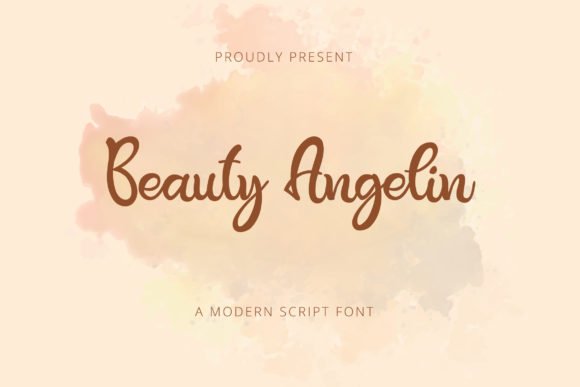
The Perfect Script: Unveiling the Beauty Angelin Font
Have you ever been stuck in a creative rut, staring at a blank canvas or a blank page, waiting for that spark of inspiration to strike? It’s a feeling many designers know all too well. But what if I told you that there’s a font that can help ignite that spark and bring your designs to life?
Meet the Beauty Angelin Font, a stunning handcrafted script font that’s perfect for adding a touch of elegance and sophistication to any graphic design project. Whether you’re creating branding materials, t-shirts, prints, business cards, logos, posters, or photography, this beautiful font is sure to make your designs stand out. And the best part? It’s versatile and easy to use, making it a valuable addition to any designer’s toolkit.
So why settle for a generic font when you can add a touch of personality to your designs with the Beauty Angelin Font? Its unique charm and character make it a game-changer for designers looking to take their work to the next level.
Beauty Angelin Font Key Features
- Font Family: Beauty Angelin Font
- Unique Characteristics: A beautiful, elegant, and modern script font with a feminine touch, ideal for wedding invitations, greeting cards, and other creative projects
Beauty Angelin Font Review
Overall, I have mixed feelings about the Beauty Angelin font. While it has some nice qualities, it also has some limitations that might make it less suitable for certain projects.
- Unique and elegant design: The font has a distinct, feminine feel that could be perfect for beauty, fashion, or lifestyle-related projects.
- High-quality rendering: The font looks great at various sizes and resolutions, making it suitable for both digital and print use.
- Good legibility: The font is easy to read, even at small sizes, which is a must for any font.
Limitsations ⚠️
- Limited character set: The font only includes a basic set of characters, which might not be sufficient for complex projects or languages that require a lot of special characters.
- No bold or italic weights: While the font looks great in its regular weight, it would be nice to have some additional weights or styles to add more variety to a design.
- No ligatures or swashes: Some fonts in this style often include ligatures or swashes to add a touch of elegance, but these are missing in Beauty Angelin.
Beauty Angelin is a beautiful font that could be perfect for certain projects, but its limitations might make it less suitable for others. With some additional weights and styles, it could be a real winner. As it stands, it’s a nice addition to any font collection, but it might not be the go-to choice for every project.
Tip: Use Beauty Angelin Font to add a touch of elegance to your designs, especially for headings and titles.
Tip: Use Beauty Angelin Font to create beautiful typography in your designs, especially for logos and branding materials.
Tip: Use Beauty Angelin Font to add a touch of sophistication to your presentations and documents.
Beauty Angelin Font is perfect for:
- Branding materials, such as logos and business cards
- Formal events, such as galas and awards ceremonies
Remember to use Beauty Angelin Font consistently throughout your design to create a cohesive and elegant look.